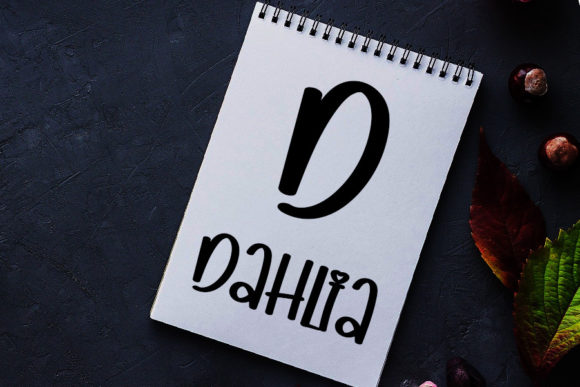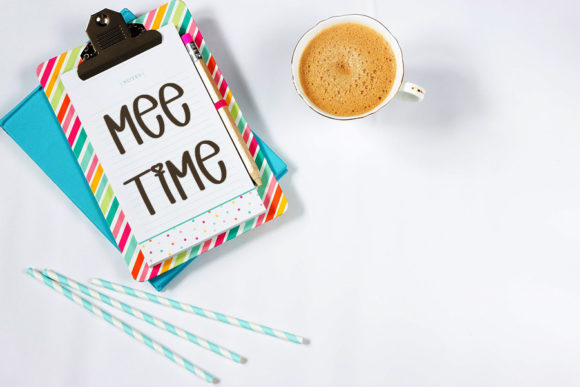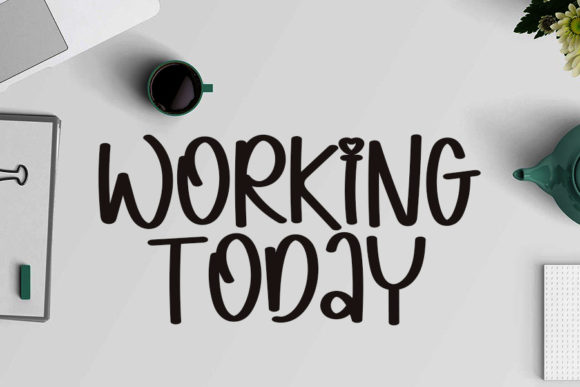
Introduction to Jelly Boho Font
Jelly Boho is a cool, brushed and quirky handwritten font.
Key Features of Jelly Boho Font
Why Choose Jelly Boho Font?
Jelly Boho Font offers exceptional quality and versatility, making it a valuable addition to your design toolkit. Whether you’re creating for personal projects or commercial use, Jelly Boho Font delivers professional results.